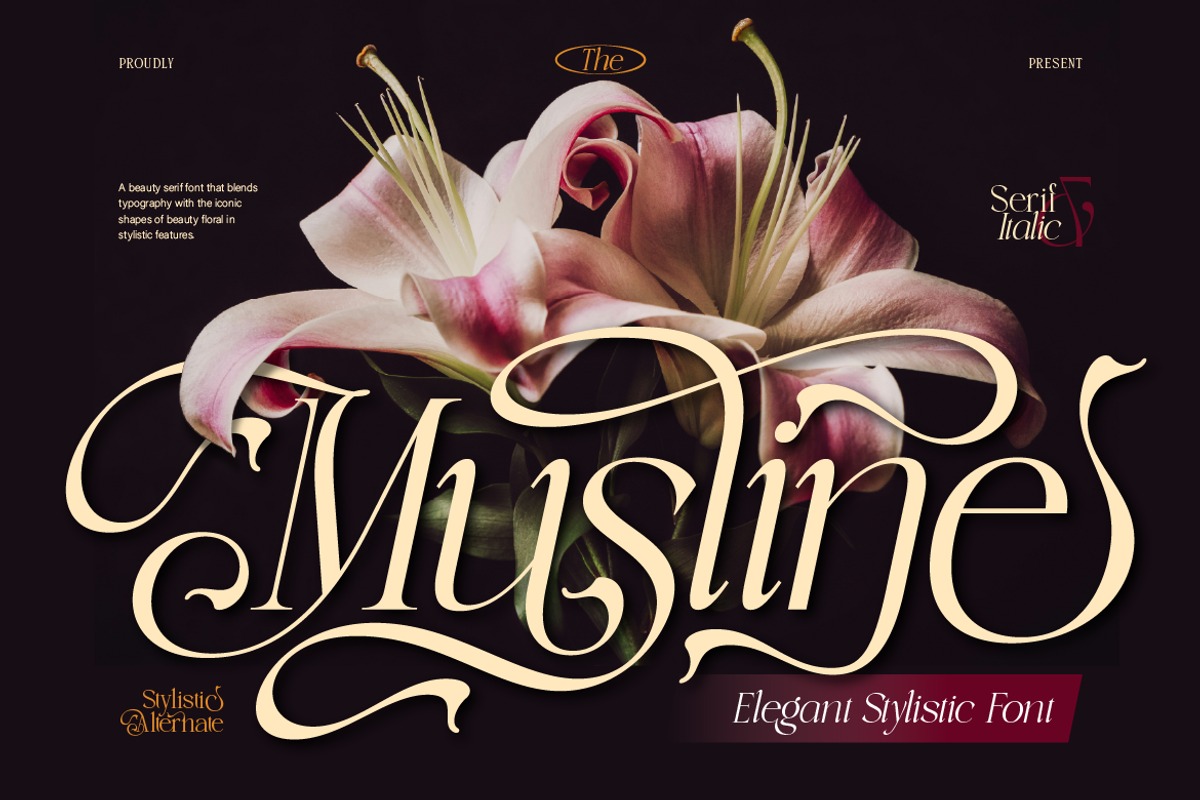
Musline – Elegant Serif Font
Musline – Elegant Serif Font is a premium-quality font developed to enhance your work with a polished, modern, and visually elevated look. Musline, an elegant stylistic serif font designed to bring timeless beauty and artistic sophistication into your designs. With its graceful curves, refined contrast, and stunning swashes, Musline blends classic serif structure with expressive decorative details.
This font is perfect for creating luxurious and eye-catching typography—whether you’re working on branding, fashion editorials, wedding invitations, or high-end packaging. Every letter is carefully crafted to give a smooth, stylish, and feminine touch that instantly elevates your design.
Musline comes with beautiful stylish alternates and ligatures, allowing you to create unique letter combinations and flowing typography with ease. From minimal elegance to dramatic headline looks, this font gives you full creative freedom.